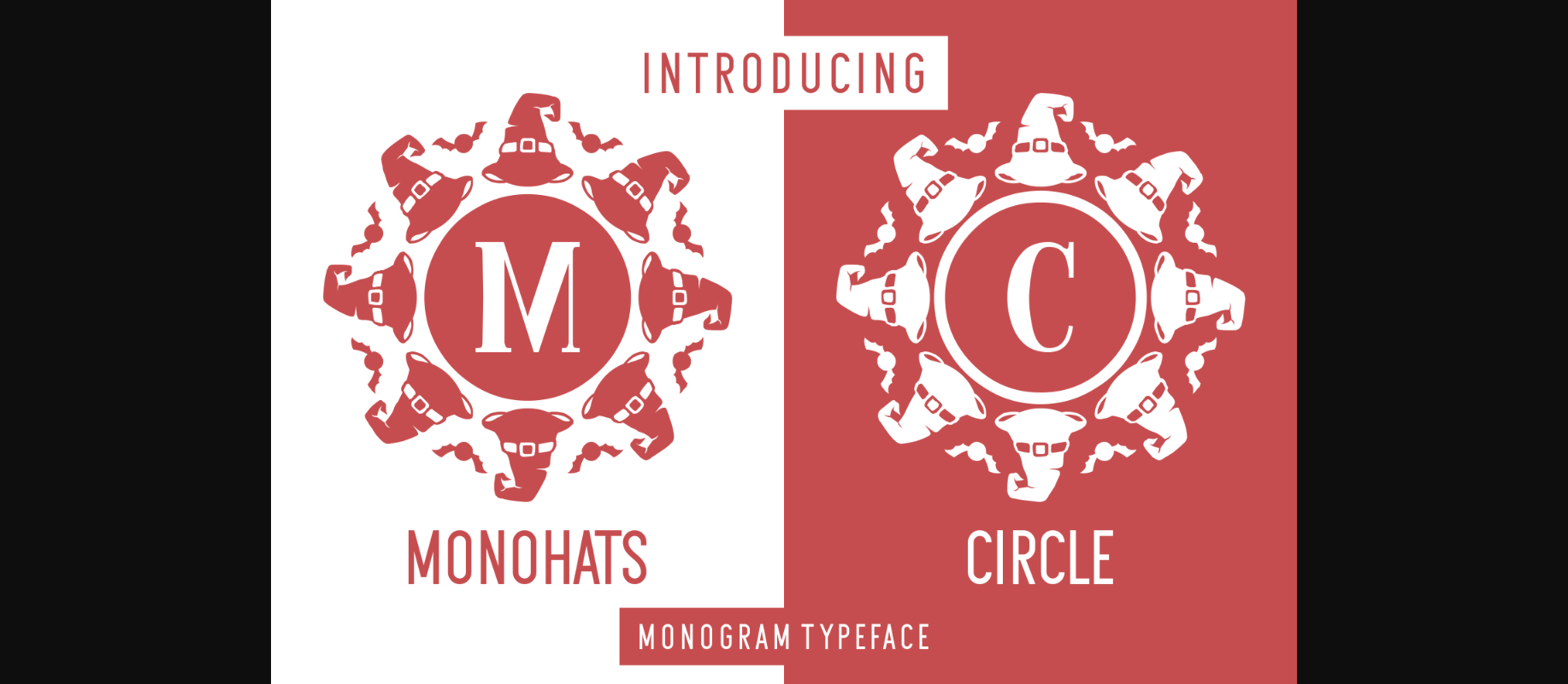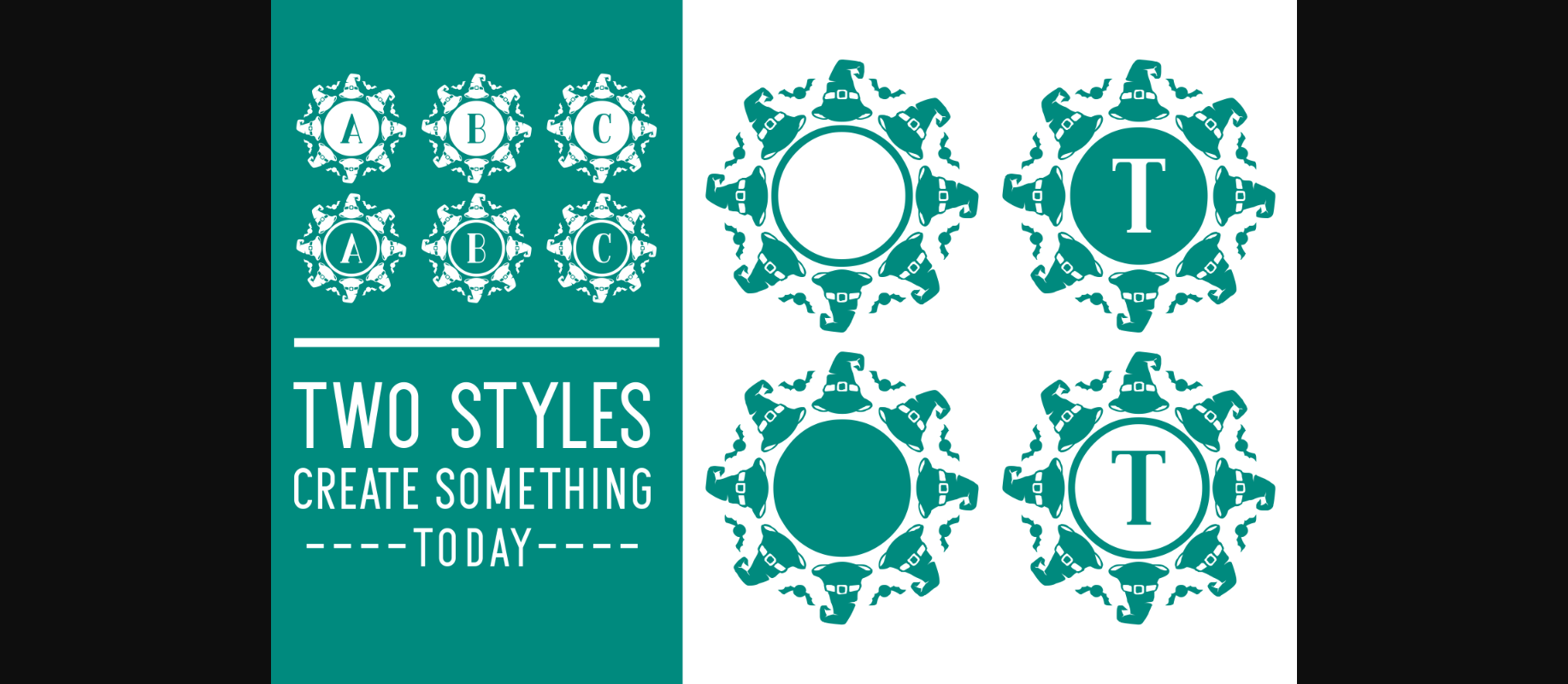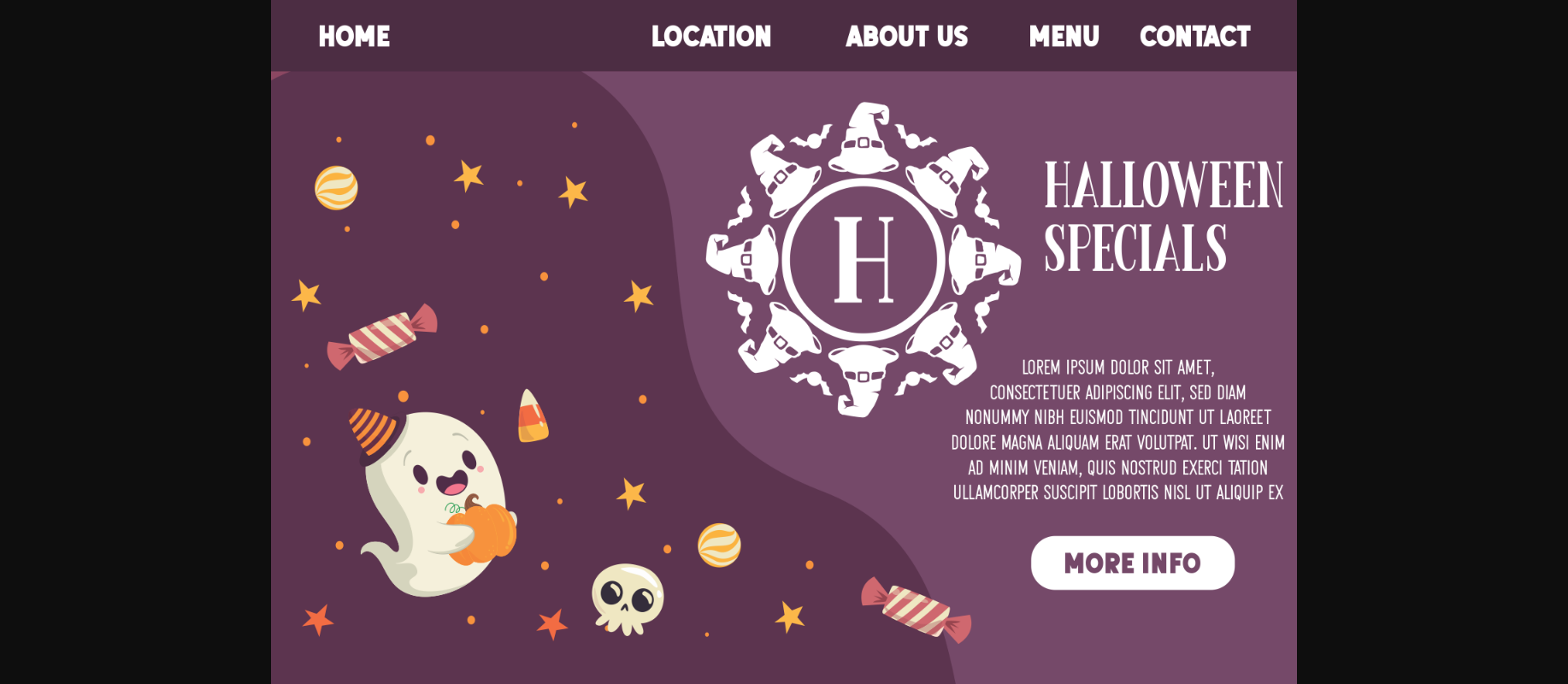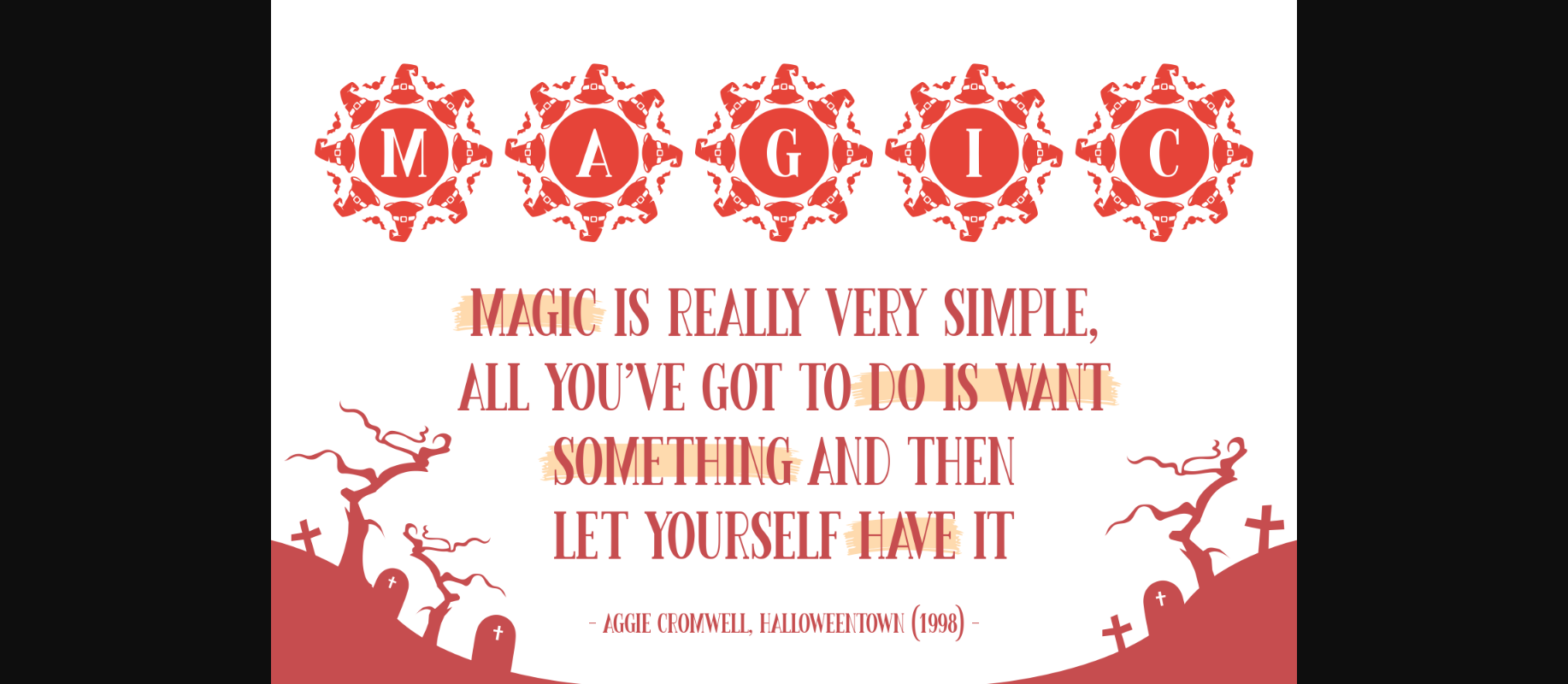
About Monohats Circle Font
Monohats Circle is a highly detailed and uniquely designed decorative font. No matter the topic, this font will be an incredible asset to your fonts’ library, as it has the potential to elevate any creation.